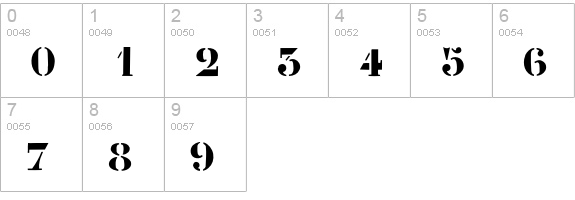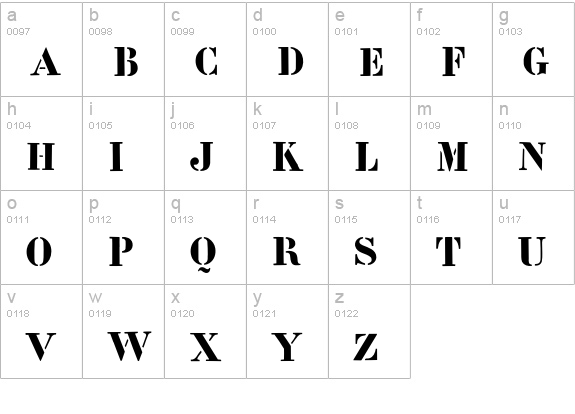
P22PopArt-Stencil is a vibrant and distinctive font that brings the spirit of the Pop Art movement to life. With its bold and eye-catching design, this font is perfect for making a statement and adding a touch of artistic flair to your projects. Inspired by the iconic stencils used by artists such as Andy Warhol and Roy Lichtenstein, P22PopArt-Stencil captures the essence of the Pop Art aesthetic, with its clean lines and bold shapes. Each letter is carefully crafted to create a sense of movement and energy, making it a truly unique and exciting font. This font is not only visually striking, but also highly versatile. Whether you're designing a poster, creating a logo, or adding a playful touch to your social media posts, P22PopArt-Stencil is sure to make a lasting impression. And the best part? P22PopArt-Stencil is available for free! That's right, you can download this incredible font for no cost at all. Simply visit FontsMarket.com and start exploring the world of Pop Art typography. So why wait? Embrace the bold and vibrant world of Pop Art with P22PopArt-Stencil. Download it today and let your creativity soar.